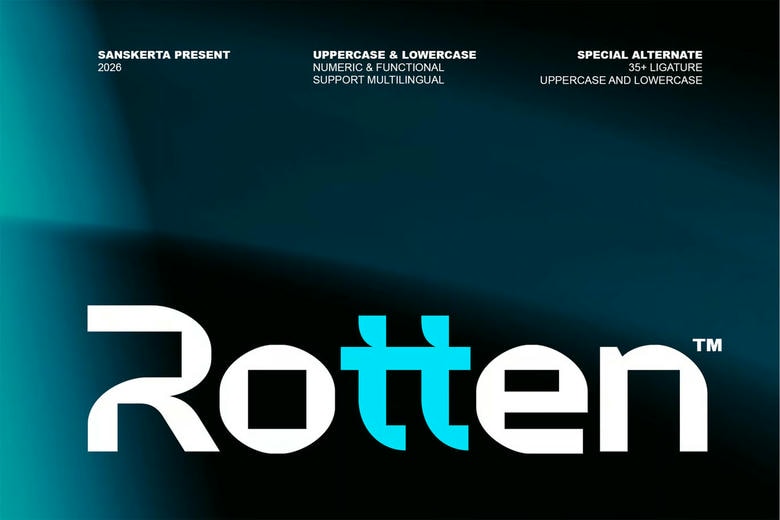
Rotten Typeface
Rotten is a typeface made to spark creativity and make an impression. It works well for many projects, adding a refined look to books, magazines, logos, branding, photography, and quotes. Use it to give your blog headers, posters, and ads a stylish edge.
Rotten Sans Serif Typeface